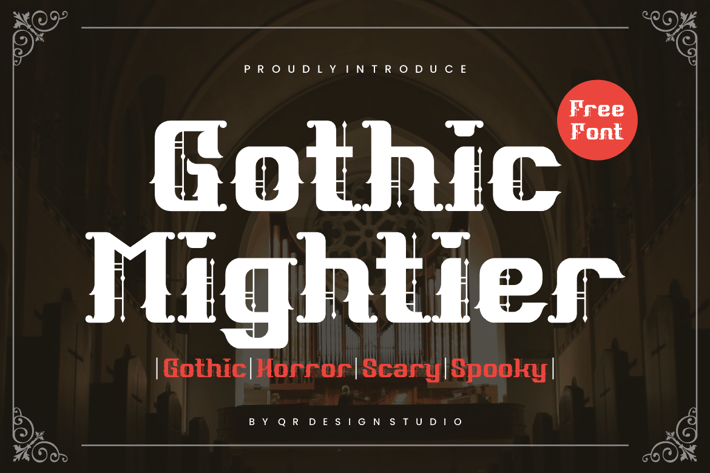
Gothic Mightier - Metal Font
Gothic Mightier - Metal Font is a bold and authentic display font.
The font is suitable for any branding project like logo, gothic, metal, poster, sport, and many more.